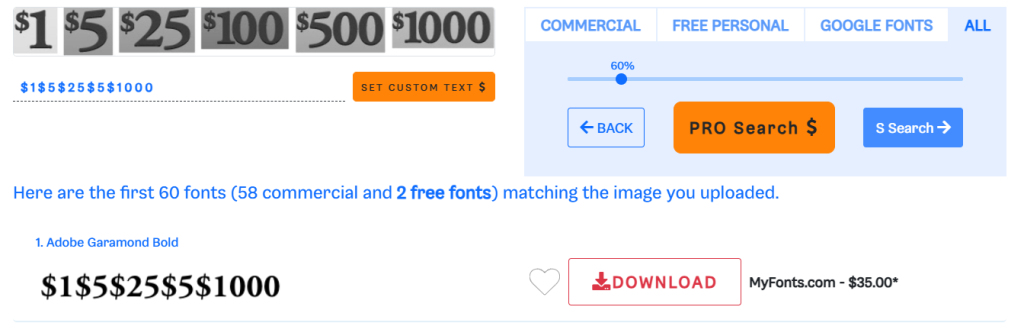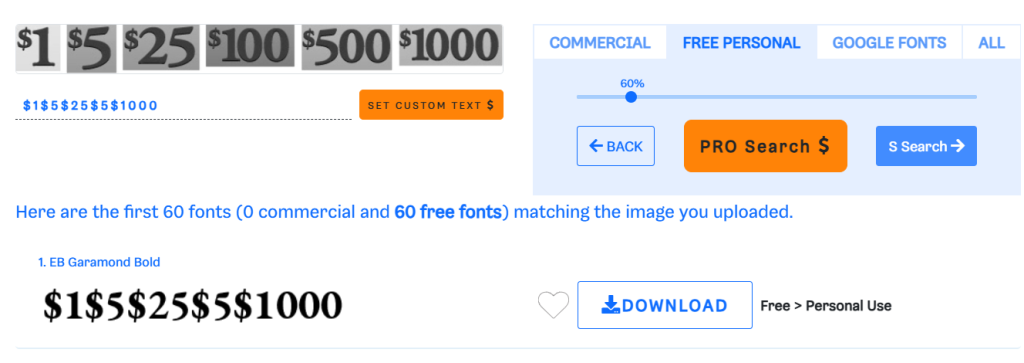
Am going to order a three denoms add-on to my CPC set. But as the previous prominent inlay designer has gone awol, I'm facing prepping the inlays myself. Was hoping can get ordered before the January price increase. I figure it can't be too hard... right? My 11 year old did a half year Photopea course and she did well. So simple... riiiight?
Three steps/queries I have:
1) The previous final inlay .ai file provided seems very small (1.01 mb) for six denoms and the inlay image quite pixelated when zoomed in. This normal? I ask because the mock jpg has a very crisp non-pixellated image and i'm not sure how that is possible based on the .ai file.
2) Inlay background is a gradient matched to chip's base colour. For the new denoms, is it as simple as using a colour picker tool to apply/replace the colour (hoping gradient stays automatic)?
3) Finding out what the heck the font is. Anyone recognise from pics below? Or am I being silly and editing software will know and I just change the denom numerals?
Vector files are very small, since they are not like photo files…just math.
The jpg made from the vector file may have been created in low resolution, or enlarged and cropped, which would make it more pixelated.
I’m sure it will print smooth.
Matching colors between inlays and chips is always a challenge, as most inlays use CMYK printing and chip colors are dyes and colorants.
The typeface might be Garamond, but I can confirm later when I get home, it looks the same as the original Bellagio denoms.
If right that could be an important piece of info if going the CPC design route. I'll take a look too.
Whatfontis says it Garamond.
With the closest free personal font being EB Garamond
I'm not picking the difference between the two. Seems EB is an open source version but otherwise intended to be identical?
Yah... subtle differences for sure. To my eye maybe a little more swoop and bulge on the 5 for the Adobe Garamond. That and the $35 for the Adobe version.
Update. Reached out to CPC but David states J5 only provides a 'print file'. He explained the .ai file J5 provided to me has the fonts converted to graphics and background embedded, so those elements cannot be individually edited. Also said the font is not Garamond. Huh.
As such CPC can't/won't do the inlays for the addon chips. David did recommend someone who may help recreate the art.
Normal for designers to provide files that can't be easily modified?
Update. Reached out to CPC but David states J5 only provides a 'print file'. He explained the .ai file J5 provided to me has the fonts converted to graphics and background embedded, so those elements cannot be individually edited. Also said the font is not Garamond. Huh.
As such CPC can't/won't do the inlays for the addon chips. David did recommend someone who may help recreate the art.
Normal for designers to provide files that can't be easily modified?
Yes, this is normal. Printers don't have all the fonts, so all text is converted to outlines when creating print files. This is a requirement for CPC.
FYI - Also CPC is correct the font is not Garamond it is Adobe Garamond bold
CPC now has inlays they can use. But, the colour matching on the inlay makes me nervous. Seems I have no real way of knowing if I've got it right.
Think I need someone with more skills and/or samples to tweak it right. Probably wouldn't take long for someone with skills.